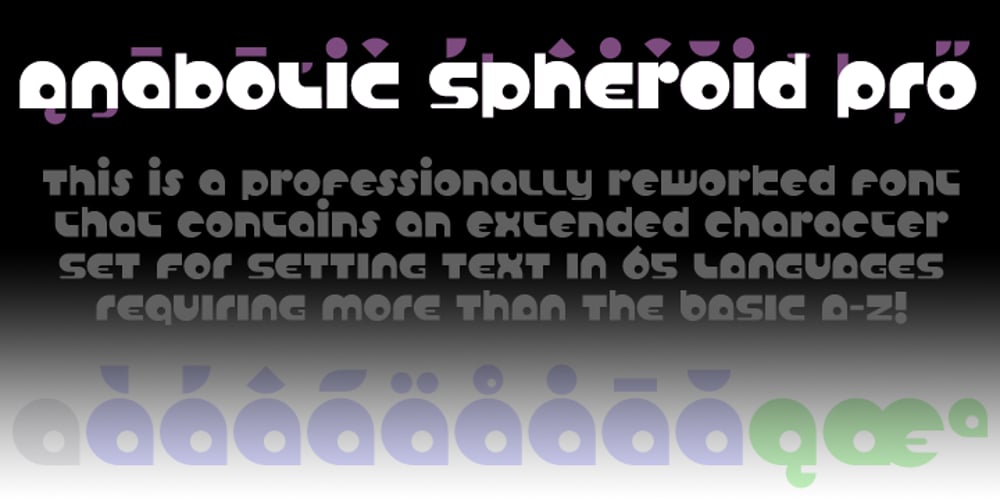
Anabolic Spheroid Pro Font Family was designed by Roger S. Nelsson, Levente Halmos and published by CheapProFonts. Anabolic Spheroid Pro contains 1 styles and family package options. A funny looking font with circular shapes and cutouts – both hippie and futuristic at the same time. I have completely redrawn all the glyphs, and introduced a lot of alternate and new letterforms to make a little more variety between upper- and lowercase (the original layout with all the “old” letterforms can easily be accessed by using the OpenType menus “stylistic Alternates” or “Stylistic Set SS01”). All diacritics and accents are totally new, and made large – in the style of the original dotted i. ALL fonts from CheapProFonts have very extensive language support: They contain some unusual diacritic letters (some of which are contained in the Latin Extended-B Unicode block) supporting: Cornish, Filipino (Tagalog), Guarani, Luxembourgian, Malagasy, Romanian, Ulithian and Welsh. They also contain all glyphs in the Latin Extended-A Unicode block (which among others cover the Central European and Baltic areas) supporting: Afrikaans, Belarusian (Lacinka), Bosnian, Catalan, Chichewa, Croatian, Czech, Dutch, Esperanto, Greenlandic, Hungarian, Kashubian, Kurdish (Kurmanji), Latvian, Lithuanian, Maltese, Maori, Polish, Saami (Inari), Saami (North), Serbian (latin), Slovak(ian), Slovene, Sorbian (Lower), Sorbian (Upper), Turkish and Turkmen. And they of course contain all the usual “western” glyphs supporting: Albanian, Basque, Breton, Chamorro, Danish, Estonian, Faroese, Finnish, French, Frisian, Galican, German, Icelandic, Indonesian, Irish (Gaelic), Italian, Northern Sotho, Norwegian, Occitan, Portuguese, Rhaeto-Romance, Sami (Lule), Sami (South), Scots (Gaelic), Spanish, Swedish, Tswana, Walloon and Yapese.